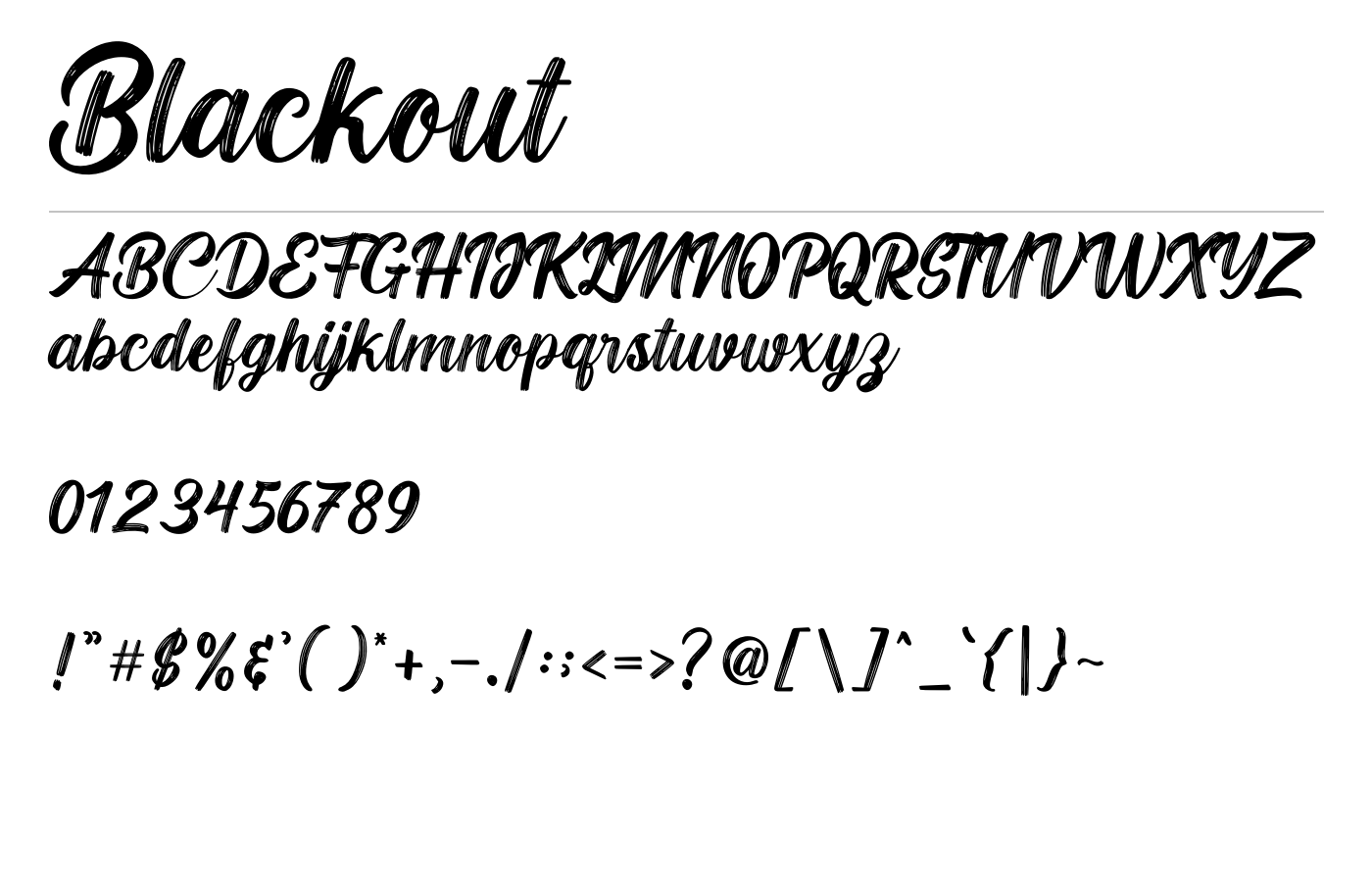
Blackout Font is a bold and energetic script font with a hand-painted feel, characterized by its thick, textured strokes and slightly condensed letterforms. Its casual yet dynamic style makes it perfect for designs that need a lively, authentic, and approachable vibe, such as branding, packaging, and headlines that seek a handcrafted or artistic touch. This font works well where personality and impact are key, bringing a fresh and creative flair to any project.
Blackout Font
About Blackout Font
| Font family | Blackout Font |
| Designer | Febryl Arully |